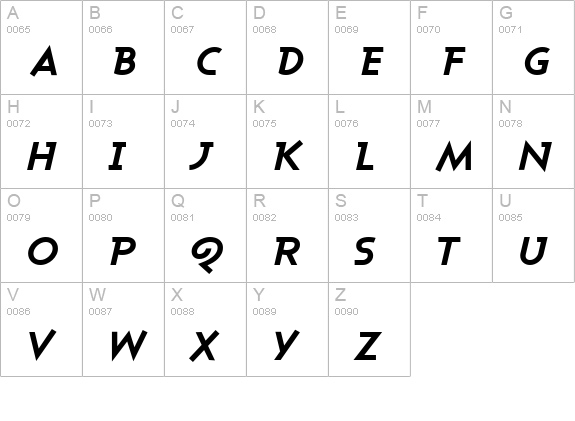
Ashby Extra Bold Italic Font Details
Ashby Extra Bold Italic is a strong, high-contrast, italic variant in the Ashby typeface family \xE2\x80\x94 well suited to headlines, attention-grabbing titles, and strong calls-to-action.
Ashby Extra Bold Italic font is a striking and powerful typeface that exudes confidence and boldness. Its thick, slanted characters make a statement and demand attention, perfect for headlines, logos, and other design projects that require a strong visual impact. The italicized style adds a touch of elegance and sophistication to the overall look. What sets Ashby Extra Bold Italic font apart is not only its bold design but also its versatility and readability. Despite its boldness, the font remains legible even at smaller sizes, making it a practical choice for various design applications. And the best part is, Ashby Extra Bold Italic font is available for free download at FontsMarket.com. So whether you're a designer looking to add a bold flair to your projects or a business owner in need of a standout font for your branding, Ashby Extra Bold Italic font has got you covered. Download it today and make a bold statement with your designs!